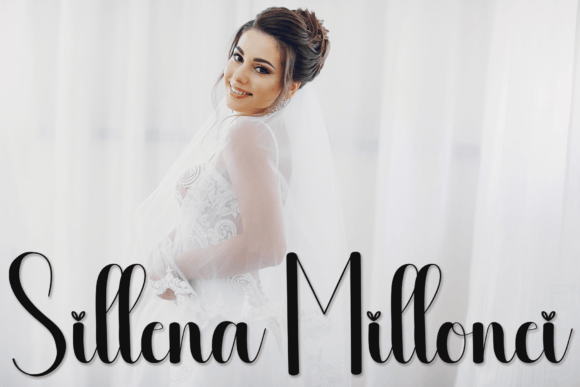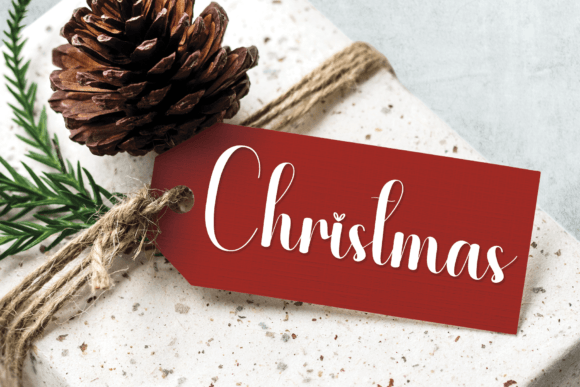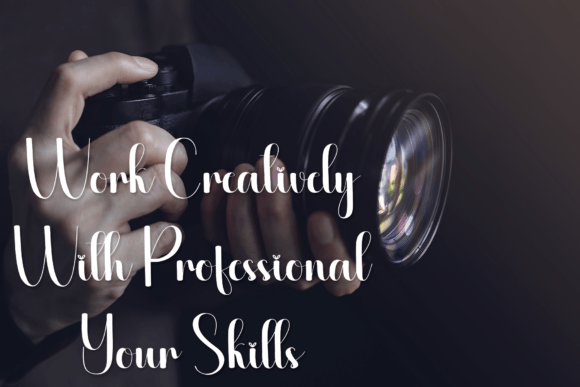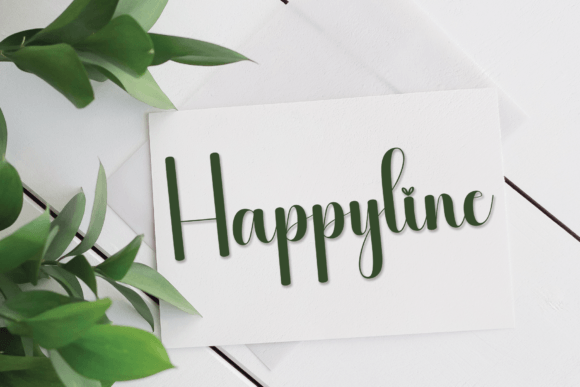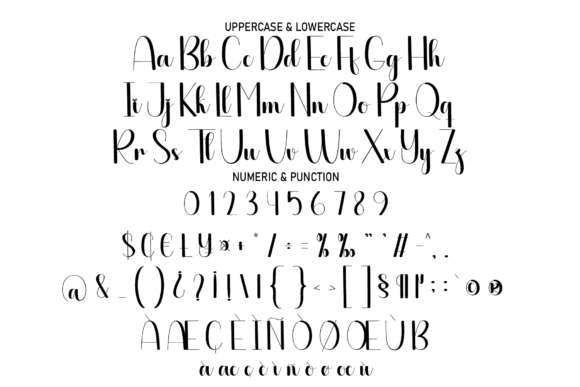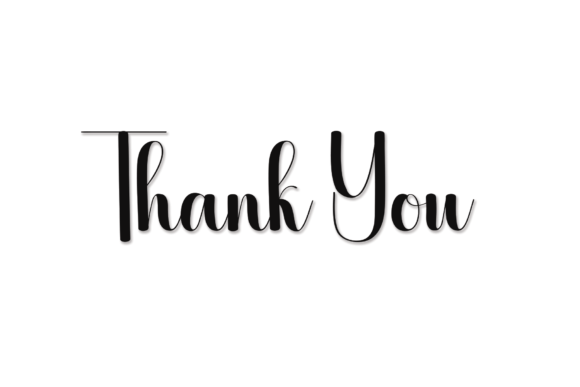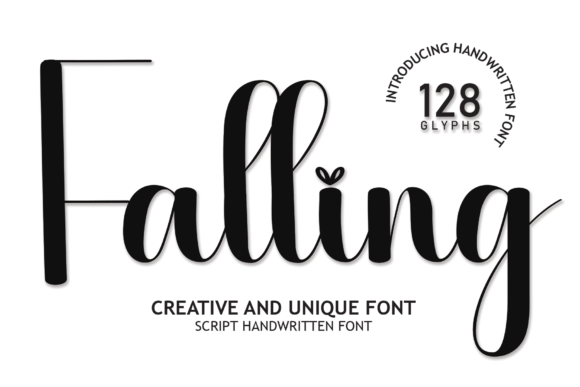
Falling Font: Elevate Your Designs with Elegance and Timeless Style
Are you on the hunt for a font that exudes elegance, sophistication, and a touch of whimsy? Look no further than the Falling Font, a beautiful, handwritten typeface that is sure to capture your heart. With its incredibly distinct and timeless style, this font is perfect for designers and crafters looking to add a unique flair to their projects.
The Essence of Falling Font
Falling Font is a flowing, handwritten font that boasts an elegant touch, making it an ideal choice for a wide range of design applications. Its fluid lines and curves create a sense of movement and dynamism, while its classic style ensures that it remains timeless and versatile. Whether you’re working on a logo, branding materials, or creative projects, Falling Font is sure to make a lasting impression.
Key Features of Falling Font
- Elegant and Sophisticated: Falling Font features a refined, elegant style that is perfect for high-end designs and luxury brands.
- Handwritten Charm: The font’s handwritten nature adds a touch of warmth and personality to any design.
- Timeless Style: Falling Font’s classic style ensures that it won’t go out of fashion anytime soon, making it a great investment for designers and crafters.
- Versatile: The font is suitable for a wide range of design applications, from logos and branding materials to invitations, packaging, and more.
Why Choose Falling Font?
With so many fonts available, why choose Falling Font? Here are just a few reasons why designers and crafters are falling in love with this beautiful typeface:
- Unique Style: Falling Font’s distinct style sets it apart from other fonts, ensuring that your designs will stand out from the crowd.
- Easy to Read: Despite its elegant and flowing nature, Falling Font remains highly legible, making it perfect for body text and headlines.
- Customizable: The font comes with a range of customization options, allowing you to tailor it to your specific design needs.
Using Falling Font in Your Designs
So, how can you use Falling Font to elevate your designs? Here are a few ideas to get you started:
- Logos and Branding: Use Falling Font to create a luxurious and sophisticated brand identity that will leave a lasting impression on your customers.
- Invitations and Stationery: Add a touch of elegance to your invitations, wedding stationery, and other paper goods with Falling Font.
- Packaging: Use the font to create eye-catching packaging that will help your products stand out on store shelves.
- Digital Designs: Falling Font is also perfect for digital designs, including social media graphics, blog headers, and more.
Tips for Getting the Most Out of Falling Font
To get the most out of Falling Font, here are a few tips to keep in mind:
- Experiment with Colors: Falling Font looks stunning in a range of colors, from rich jewel tones to soft pastels.
- Play with Pairings: Try pairing Falling Font with other fonts to create a unique and eye-catching design.
- Pay Attention to Spacing: Make sure to leave enough space between lines and words to ensure that the font’s elegant style shines through.
In conclusion, Falling Font is a beautiful, elegant, and timeless typeface that is perfect for designers and crafters looking to add a touch of sophistication to their projects. With its unique style, versatility, and ease of use, it’s no wonder that Falling Font is quickly becoming a favorite among designers. So why not give it a try and see how it can elevate your designs?